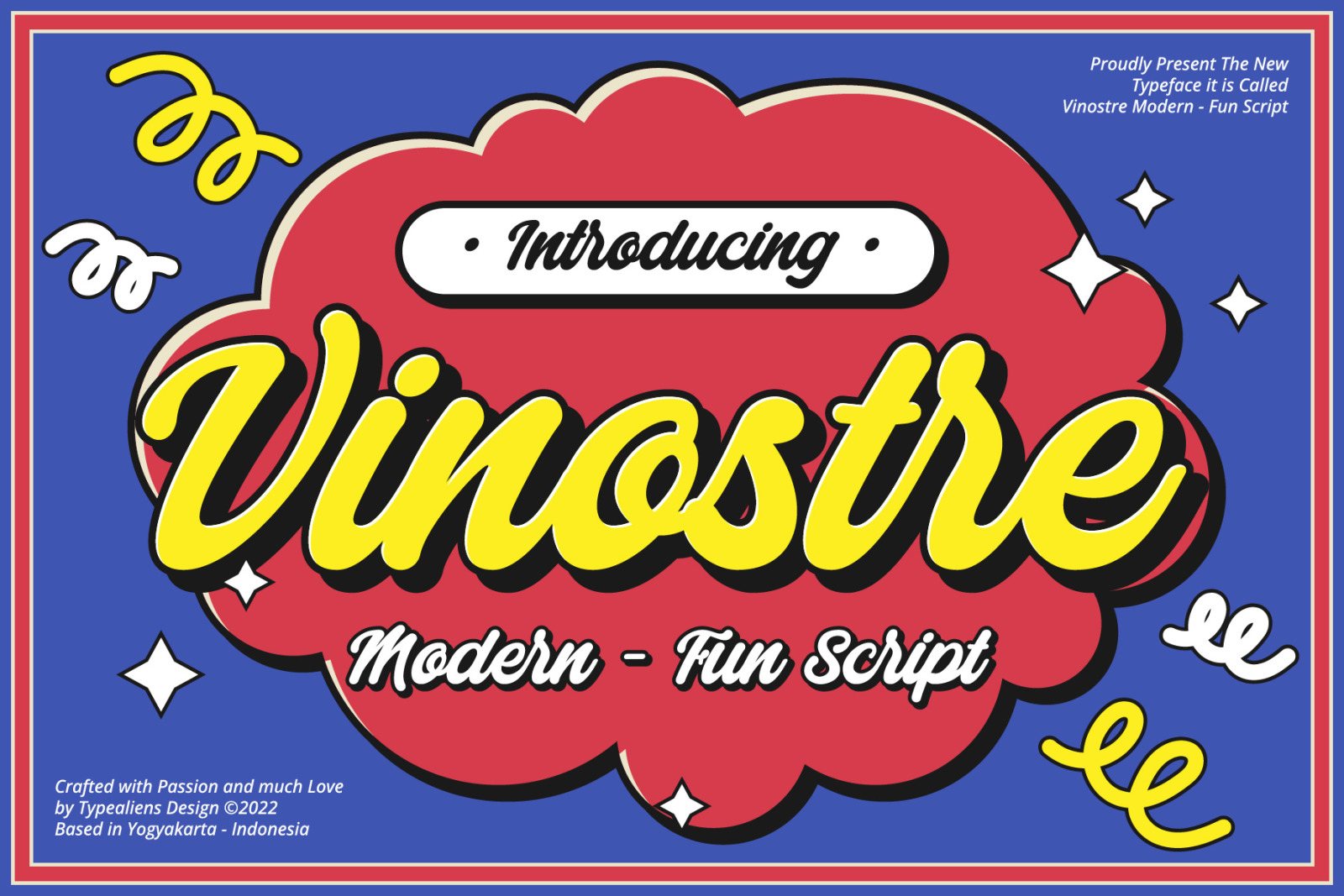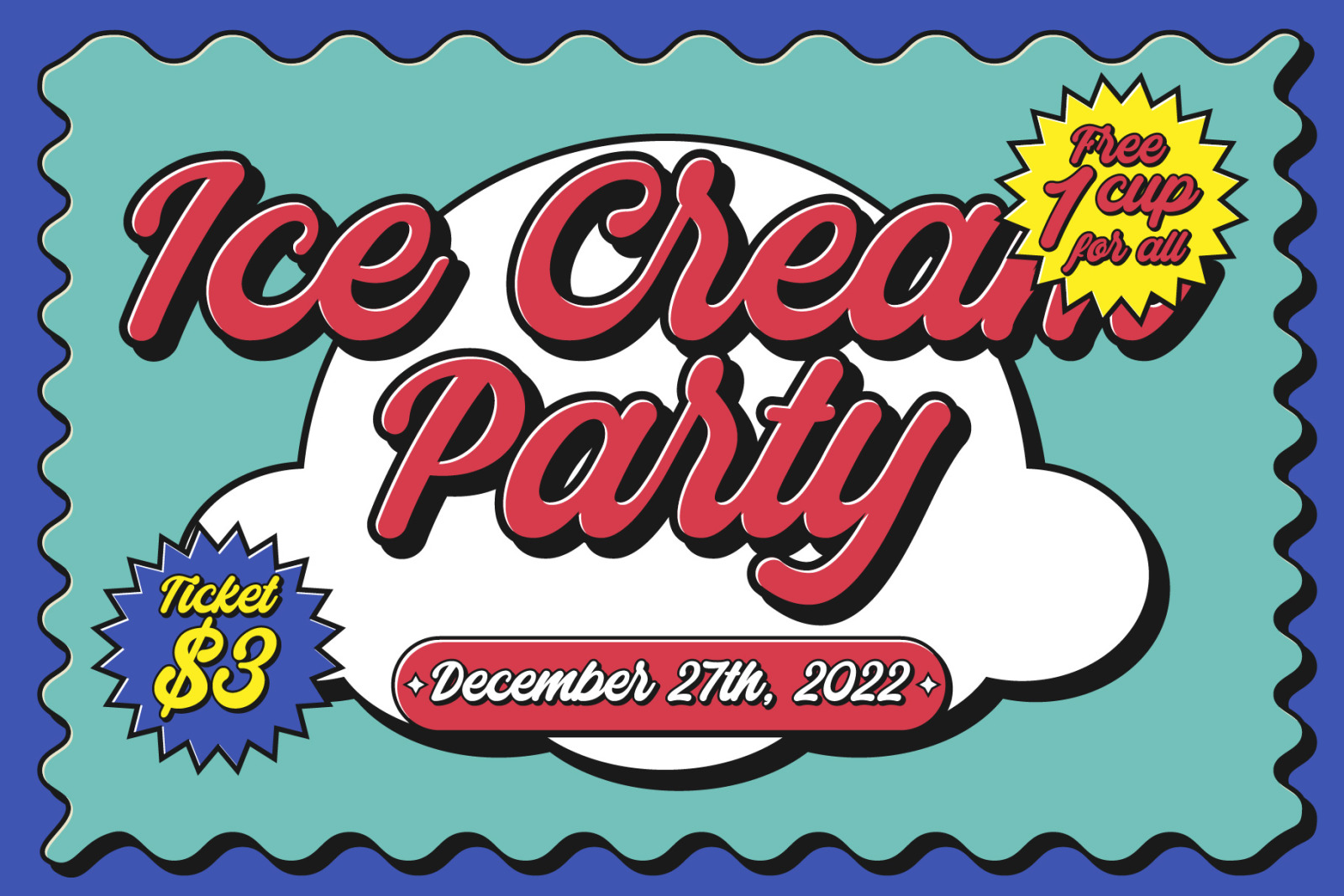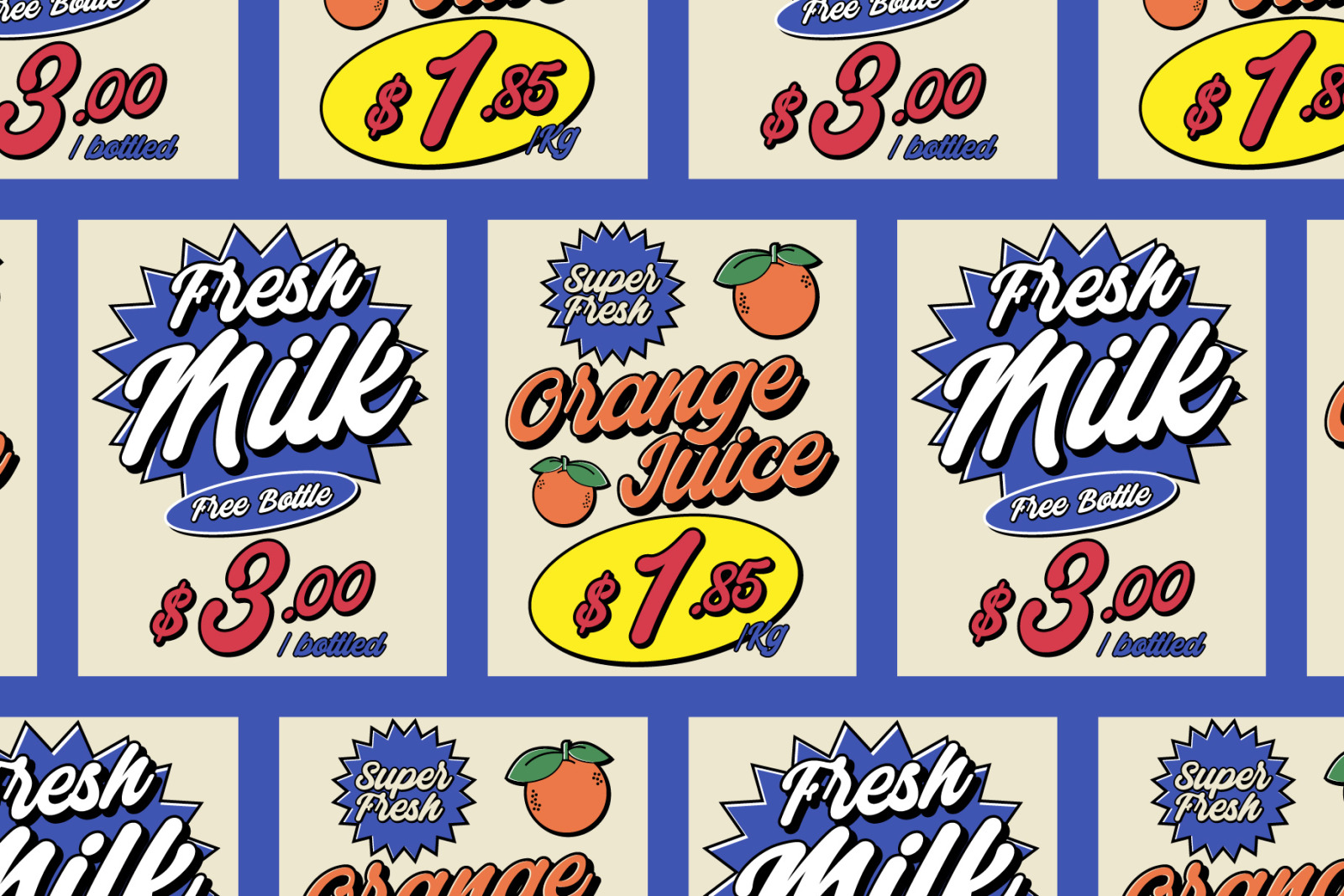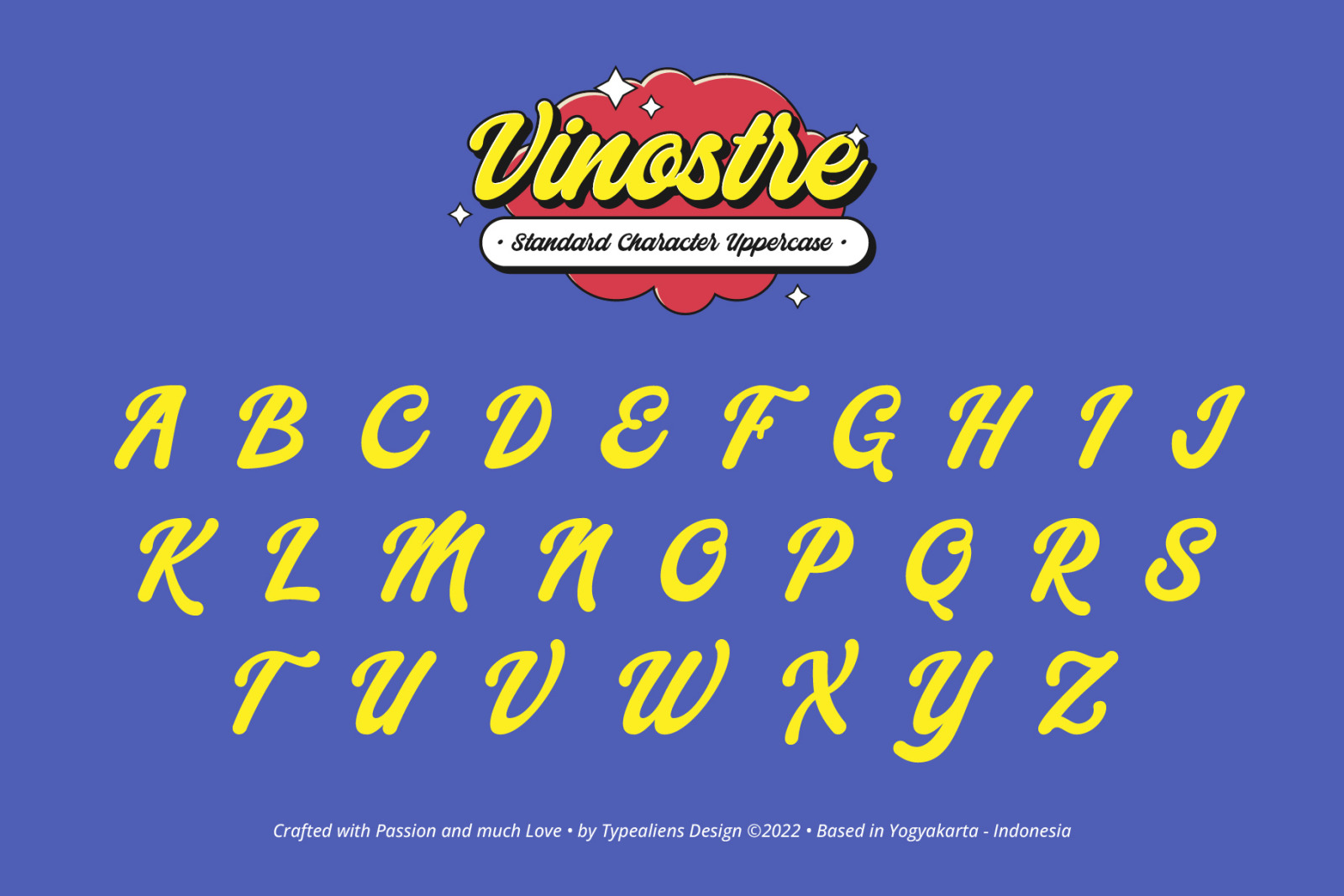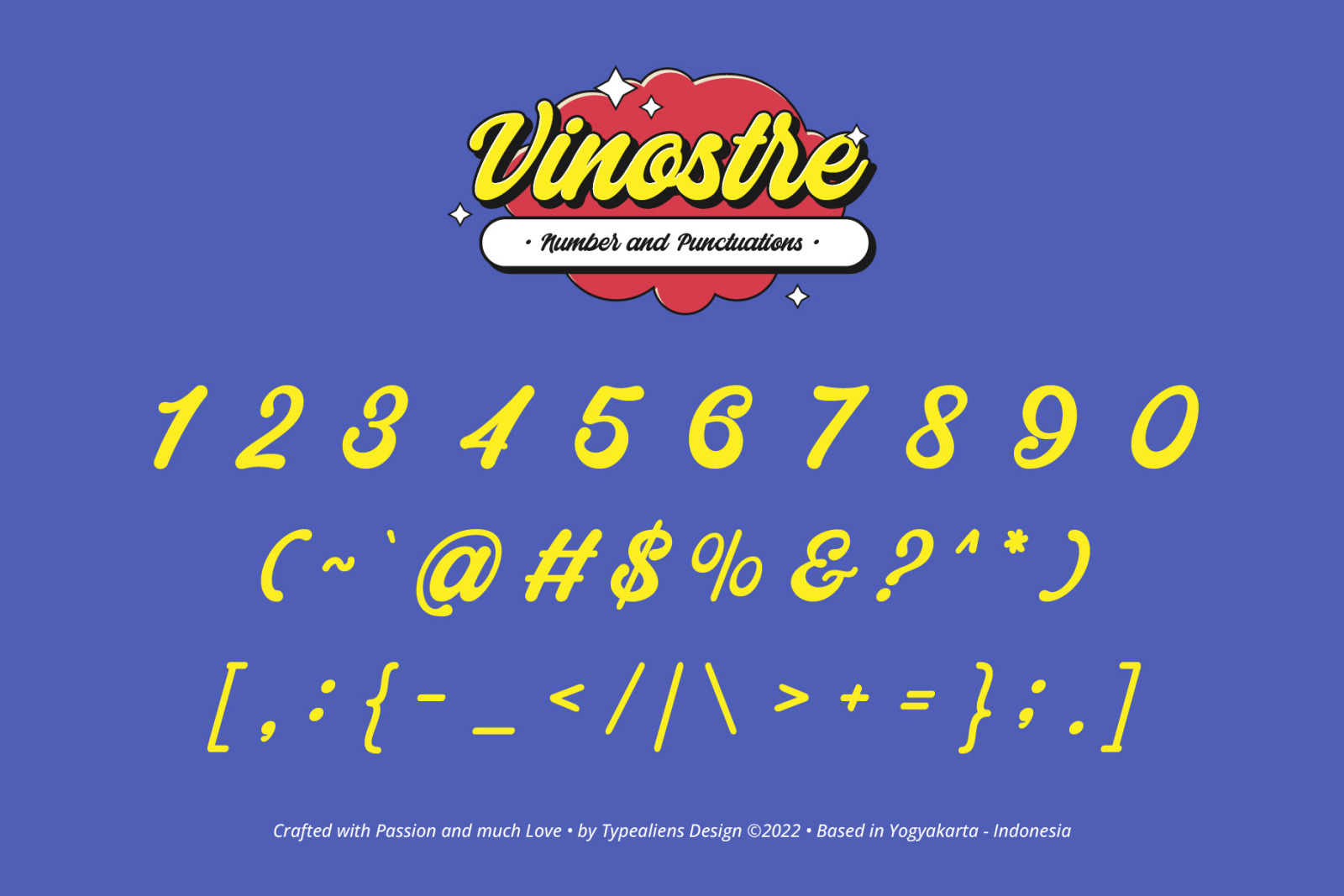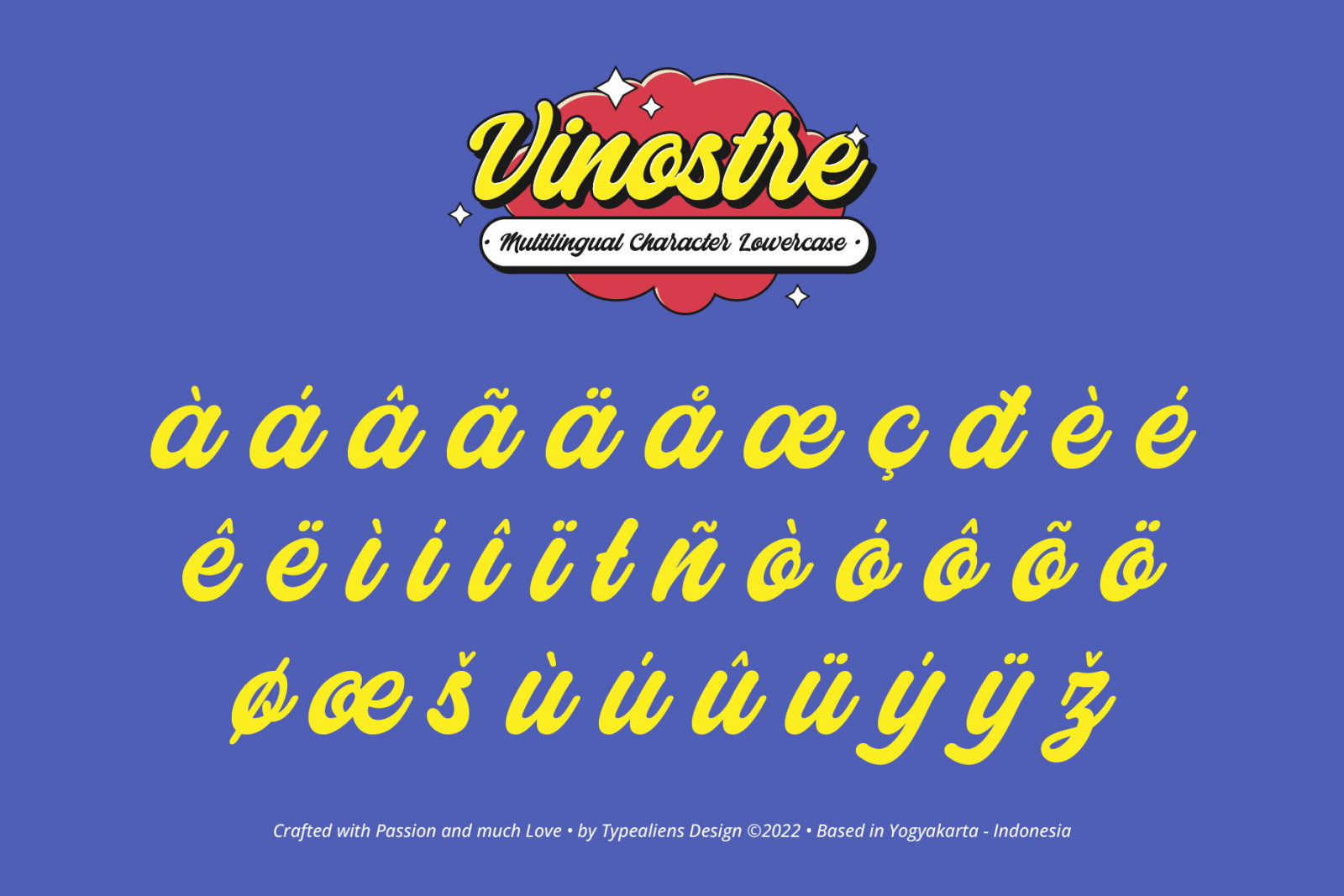
Vinostre Font
VINOSTRE is a unique script font with a slightly classic and fun style, with rounded strokes that make this font seem casual and not stiff. This font is also suitable for supporting food wrap designs as well as for food or snack promotions.